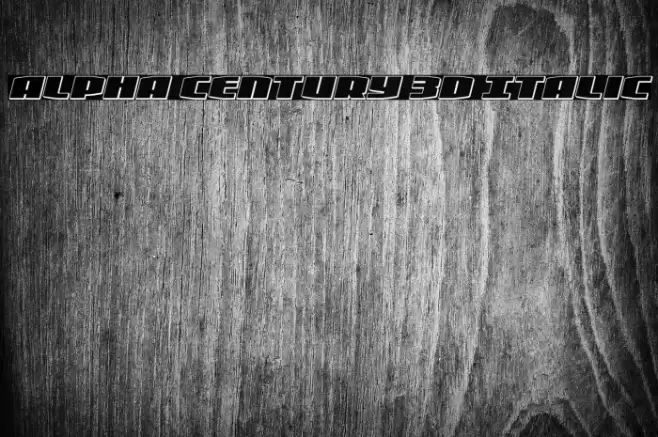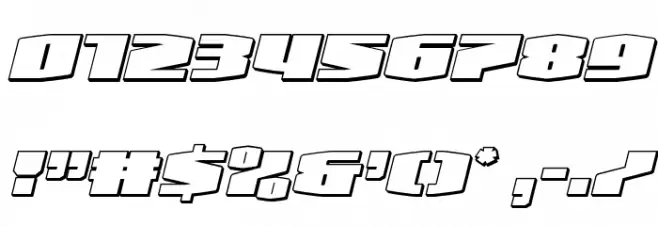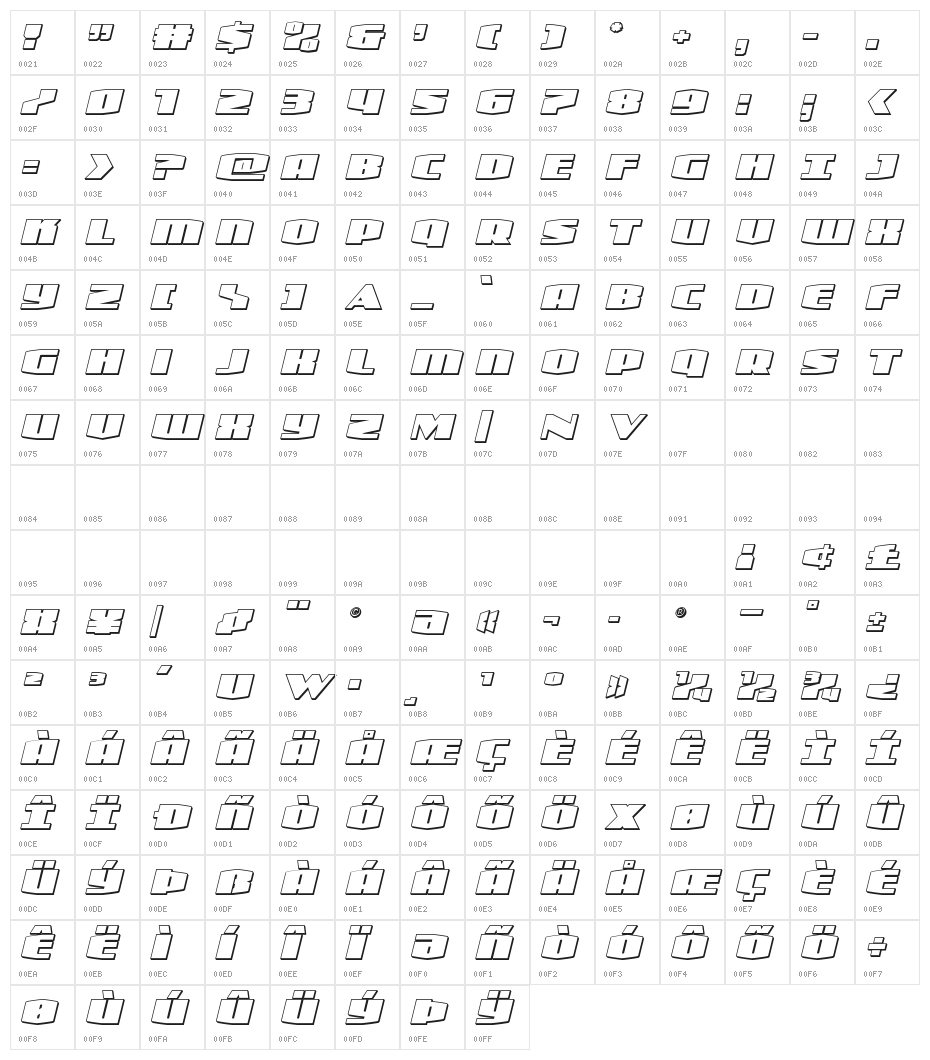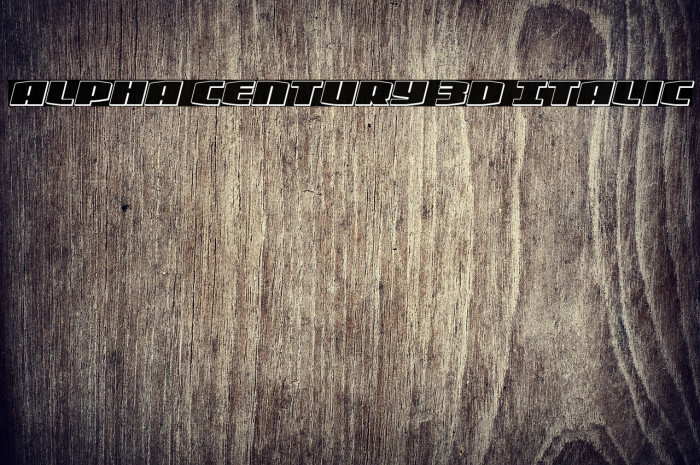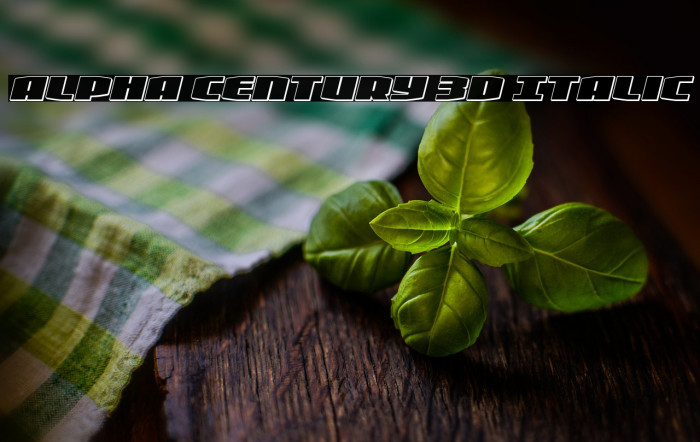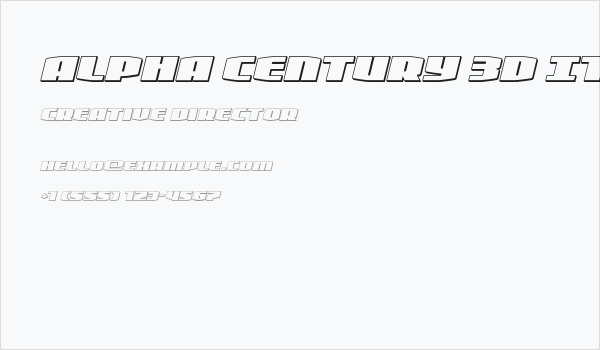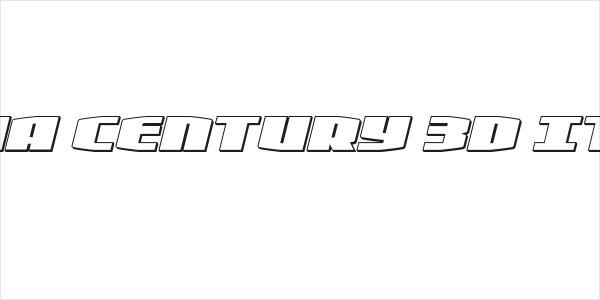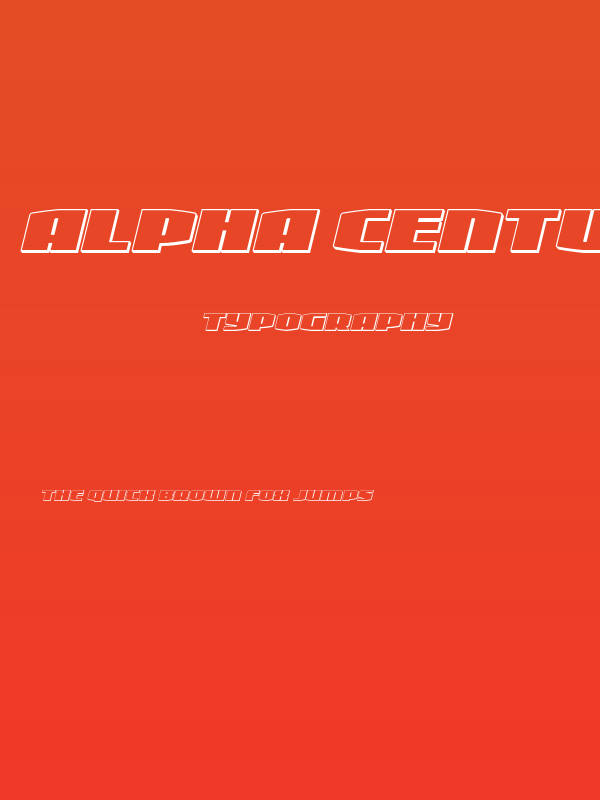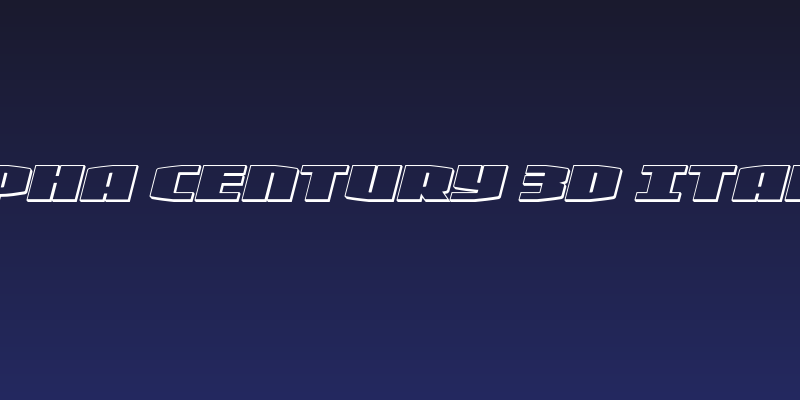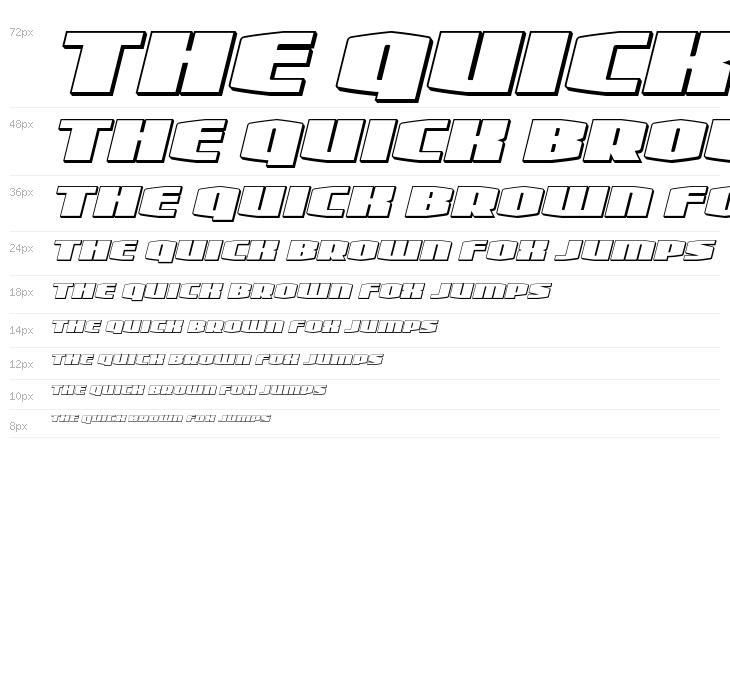
Alpha Century 3D Italic Font
Alpha Century 3D Italic Description
This font features a bold, three-dimensional style with an italic slant, giving it a dynamic and futuristic appearance. The characters are outlined, creating a sense of depth and shadow that enhances the 3D effect. The uppercase and lowercase letters maintain a consistent geometric structure, with sharp angles and clean lines. The numerals and special characters follow the same design principles, ensuring uniformity across all glyphs. This font's unique style makes it stand out, suitable for projects that require a modern and eye-catching typeface.
A bold, 3D italic font with a futuristic and dynamic style from Uncategorized fonts.
- Proposed Projects: Ideal for sci-fi themed designs, video game titles, posters, and branding that requires a modern and striking look.